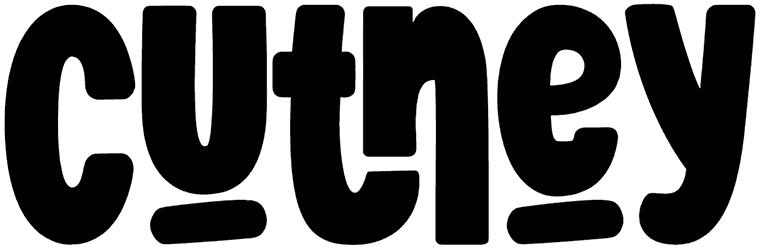
Cutney Font
If you want to design new kinds of creative ideas, such as illustrations, storybook covers, stickers, digital banners, or blog posts, then you have to take advantage of a marvelous cartoon font the such as Cutney.